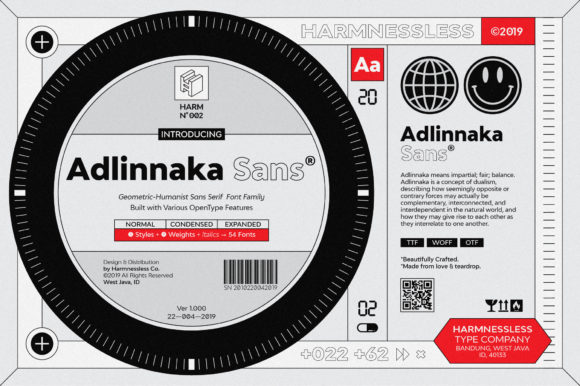
The Designer’s Delight: Adlinnaka Family Font
I’ll never forget the struggle I faced while working on a project for a client who wanted a modern, minimalist look. I spent hours scouring the internet for the perfect font, only to end up with a design that felt flat and uninspiring. That was until I stumbled upon the Adlinnaka Family Font. This game-changing font family has been a staple in my design toolkit ever since. In this article, I’ll share my experience with Adlinnaka, its features, and how to make the most of it in your designs.
- ✨ Light and Minimal: Adlinnaka’s clean lines and subtle curves make it perfect for designs that require a touch of elegance.
- ✅ Bold Twist: The font’s bold variant adds a nice contrast to the light version, making it ideal for headings and titles.
- 💡 OpenType Features: Adlinnaka supports a range of OpenType features, including stylistic alternates, ligatures, and more.
While Adlinnaka is an excellent font, it’s not without its quirks. For instance:
- 🤔 Limited Glyphs: Adlinnaka’s glyph set is relatively limited, which might make it less suitable for designs that require a wide range of special characters.
- ⚠️ Kerning Issues: Some users have reported kerning issues when using Adlinnaka in certain applications. However, these issues can be easily addressed by adjusting the kerning settings.
Adlinnaka was designed with the goal of creating a font that would be both modern and timeless. The font’s creator drew inspiration from classic typography and infused it with a fresh, minimalist twist. The result is a font that feels both elegant and approachable.
Q: Is Adlinnaka suitable for body text?
A: While Adlinnaka can be used for body text, it’s primarily designed for headings and titles. For body text, consider using a font with a slightly larger x-height and more pronounced letterforms.